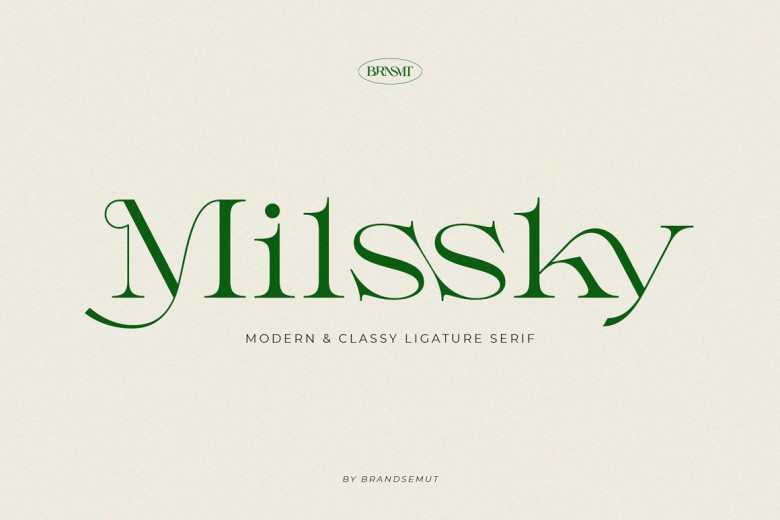
Milssky Font
Milssky is a brand new serif with tons of ligatures and stylistic alternates. A modern, elegant font that elevates the appearance of everything from headlines or logos, brands, magazines, product packaging, and invitations. They have a sleek and sophisticated aesthetic, thanks to their simple lines and gracefully flowing curves.
Milssky Serif Font